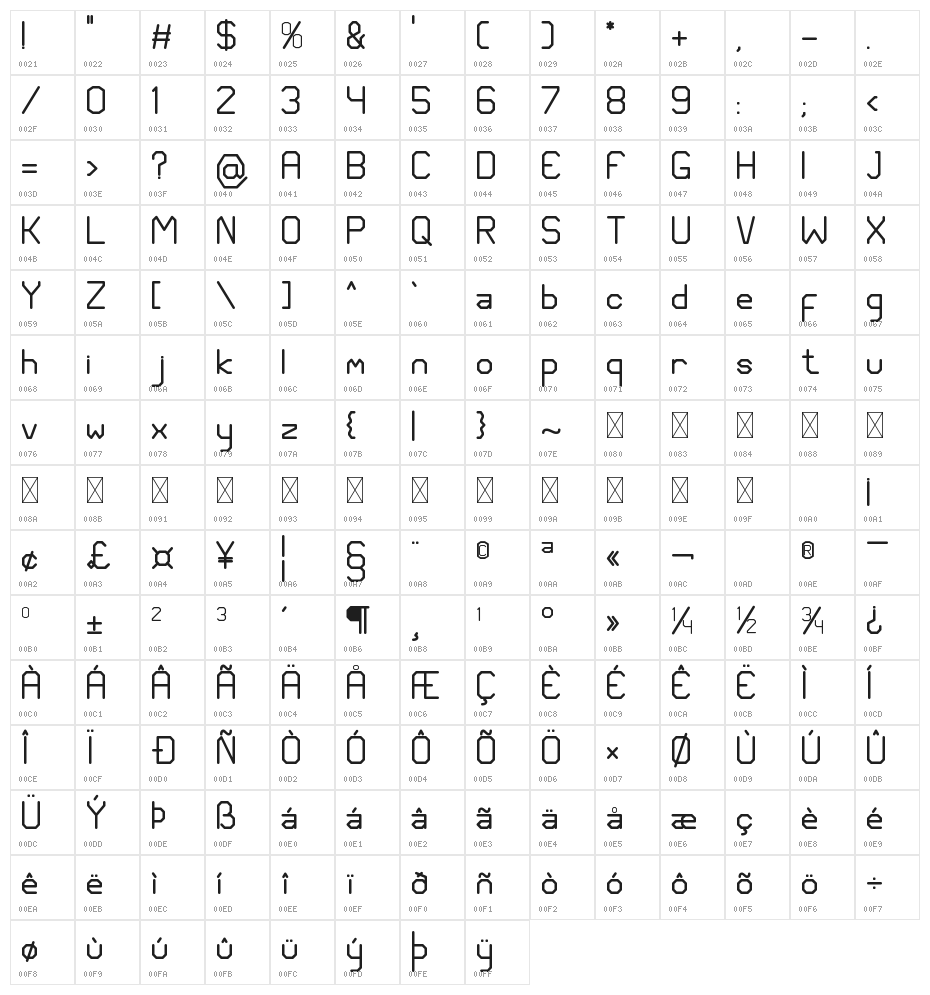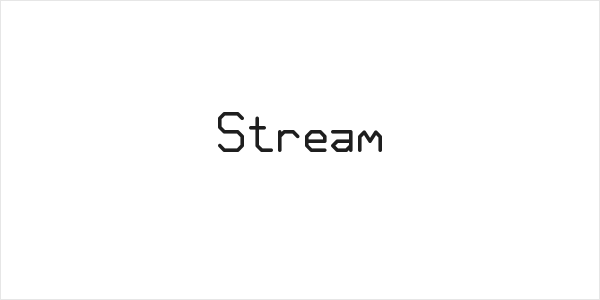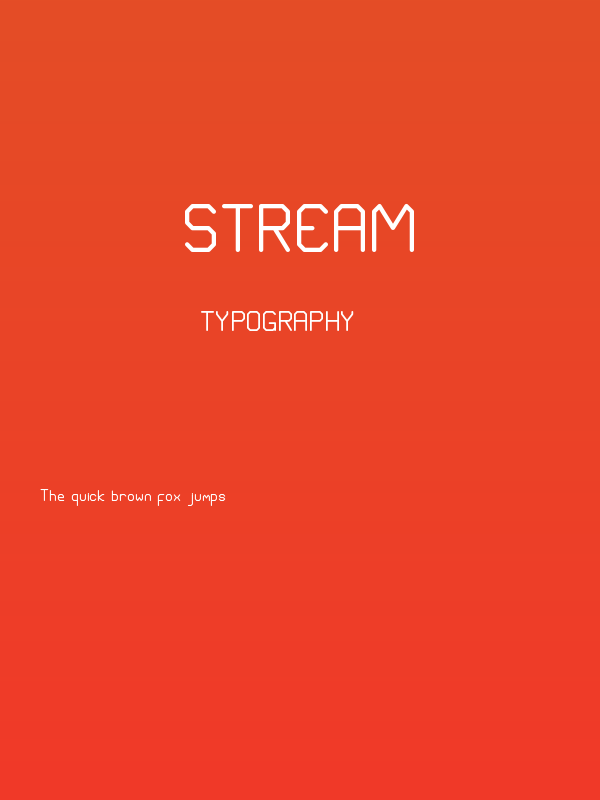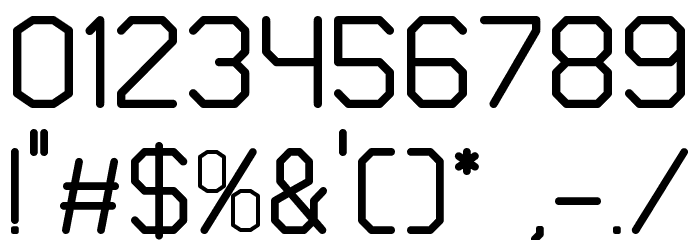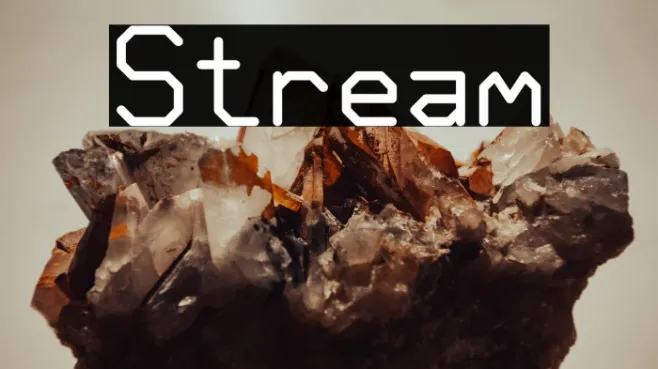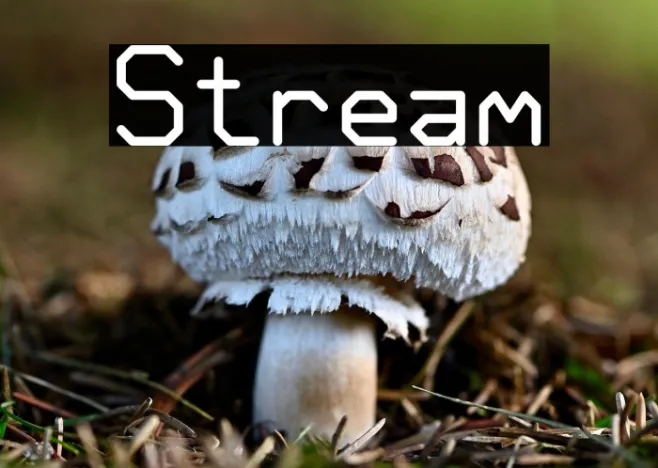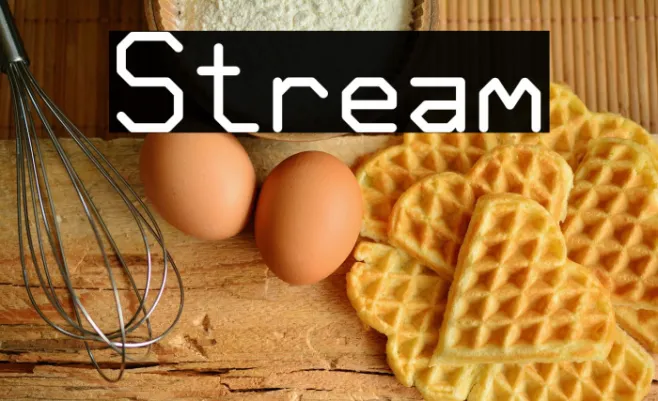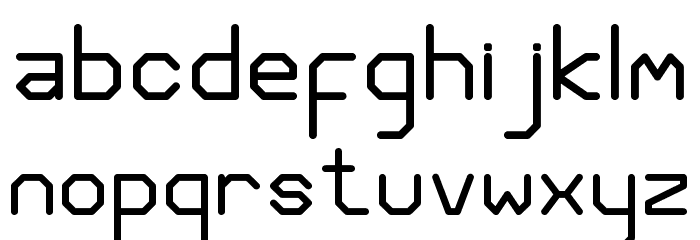
Stream Font
Stream Description
This font features a geometric and modern design with a distinct octagonal structure. Each character is composed of straight lines and sharp angles, giving it a futuristic and technical appearance. The uppercase and lowercase letters maintain a consistent style, with the lowercase being slightly more rounded. Numbers and special characters follow the same geometric pattern, ensuring uniformity across the font. The overall look is clean and precise, making it suitable for digital and technical applications. The font's unique style is both eye-catching and functional, ideal for projects that require a modern and innovative touch.
| Overall Style | Futuristic, Technical |
| Use Case | Logos, Headlines, Digital interfaces |
| Proposed Projects | Ideal for tech branding, digital interfaces, video game design, and futuristic posters. |